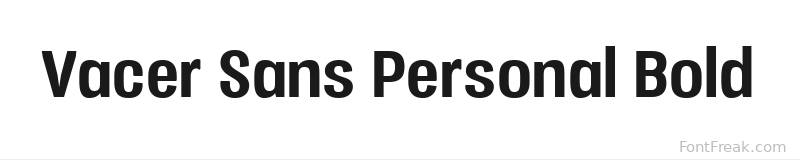
Vacer Sans Personal Bold
About Vacer Sans Personal Bold
Vacer Sans Personal Bold is a striking sans-serif font designed by Mans Greback, characterized by its bold, contemporary aesthetic. This font features a strong stroke weight that conveys confidence and clarity, making it an excellent choice for a variety of applications. The visual characteristics include a clean and uniform spacing, which enhances readability, and an absence of decorative elements, allowing the typeface to maintain a modern and minimalist feel. The lack of high contrast between thick and thin strokes contributes to its uniformity and straightforward appearance.
This font is particularly well-suited for specific use cases such as branding materials, where a bold yet approachable look is essential. It works wonderfully on restaurant menus, providing a clear and direct visual appeal that can enhance the dining experience. Additionally, Vacer Sans Personal Bold is ideal for posters and flyers, especially for events or promotions that aim to capture attention quickly. Graphic designers will find it a valuable asset for creating impactful headlines or titles in various projects. Content creators can utilize this font for social media graphics, ensuring their posts stand out in crowded feeds.
Targeting a diverse audience, Vacer Sans Personal Bold appeals to graphic designers, small business owners, and content creators who seek a reliable typeface that maintains professionalism without sacrificing personality. Its availability as a freeware makes it accessible for personal and commercial projects alike.
In summary, Vacer Sans Personal Bold font free download offers a unique combination of strength and simplicity that sets it apart from other typefaces. Its versatility and modern appeal make it a must-have for anyone looking to make a statement in their design work.